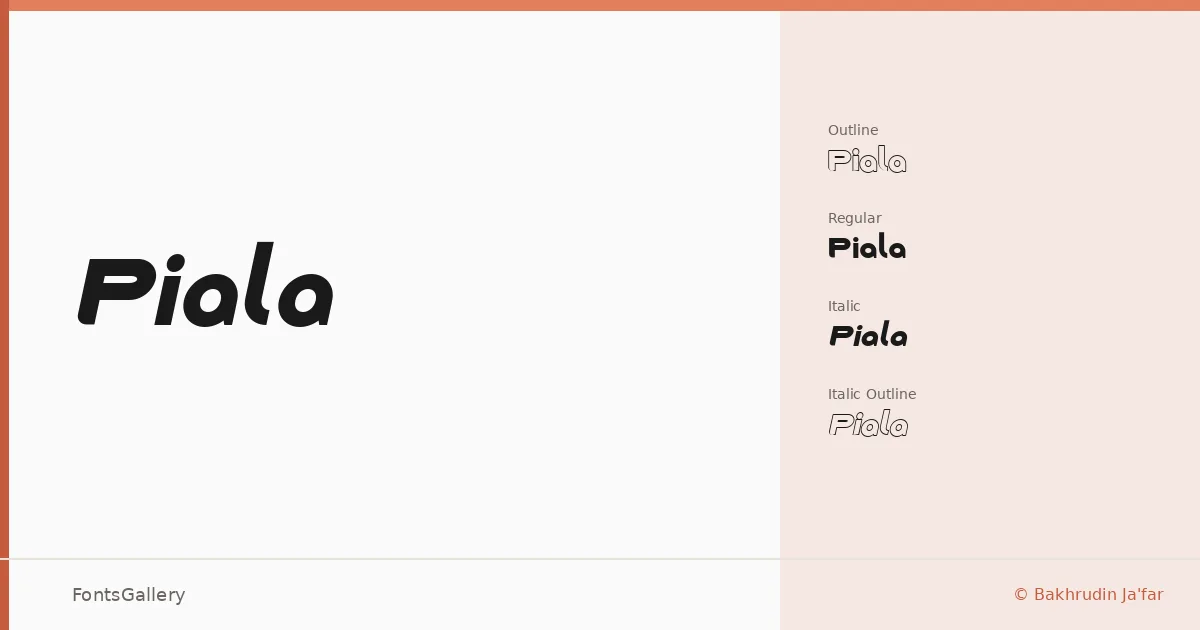
About Piala Font
There is a confident swagger to these letterforms — broad, deliberate strokes that lean into display work rather than apologize for it. Piala was designed by Bakhrudin Ja'far of Roomspace Creative Lab, and the family arrives in four cuts: Regular, Italic, Outline, and Italic Outline, each sharing the same bold modern personality.
This is a display face with a playful edge — the kind of type that holds its ground at large sizes without feeling rigid. The outline variants add a second register, letting you layer or alternate between filled and open forms depending on the mood of a layout. Available in TTF and OTF formats, the family covers Latin script throughout all four styles.
It earns its keep in branding, logo lockups, posters, social media graphics, and T-shirt design — anywhere a headline needs weight and character in equal measure. For text companions, the family sits well alongside Helvetica or Abrade for clean contrast, while Canela, (AH) Manal, or ABC Arizona each bring a different editorial warmth if you want something less neutral underneath.